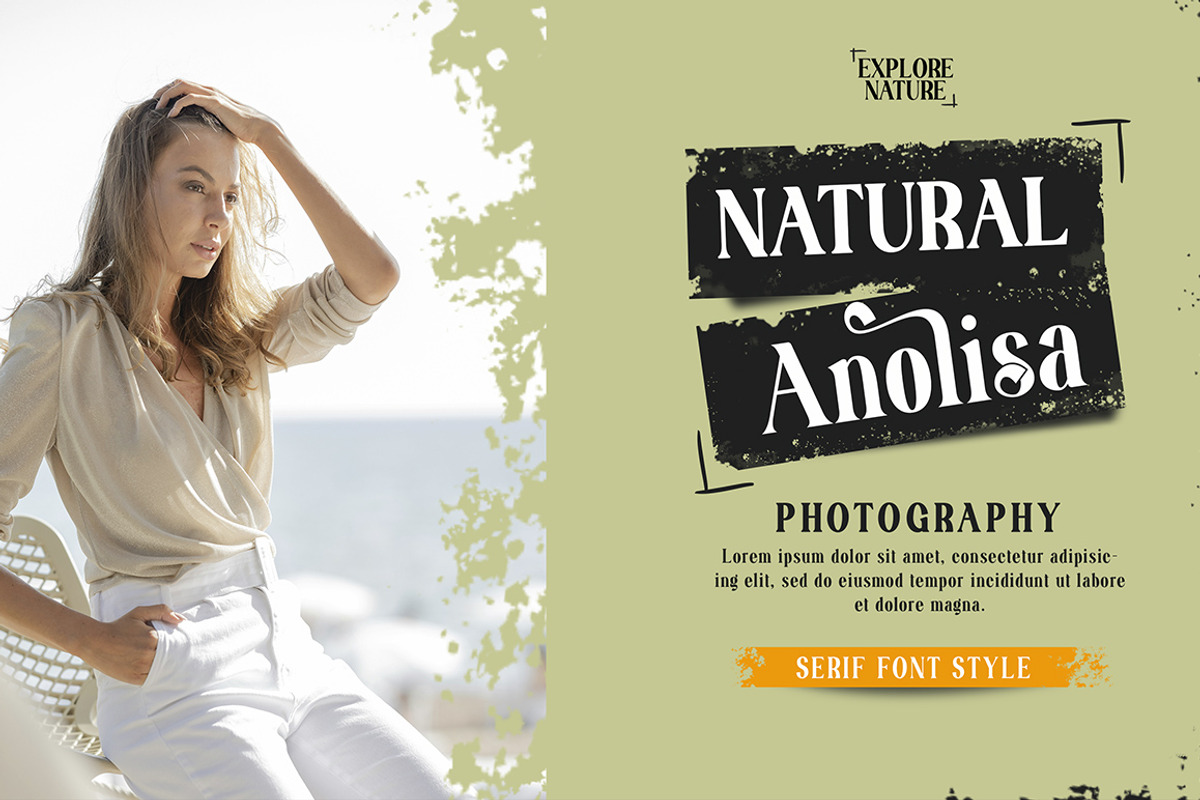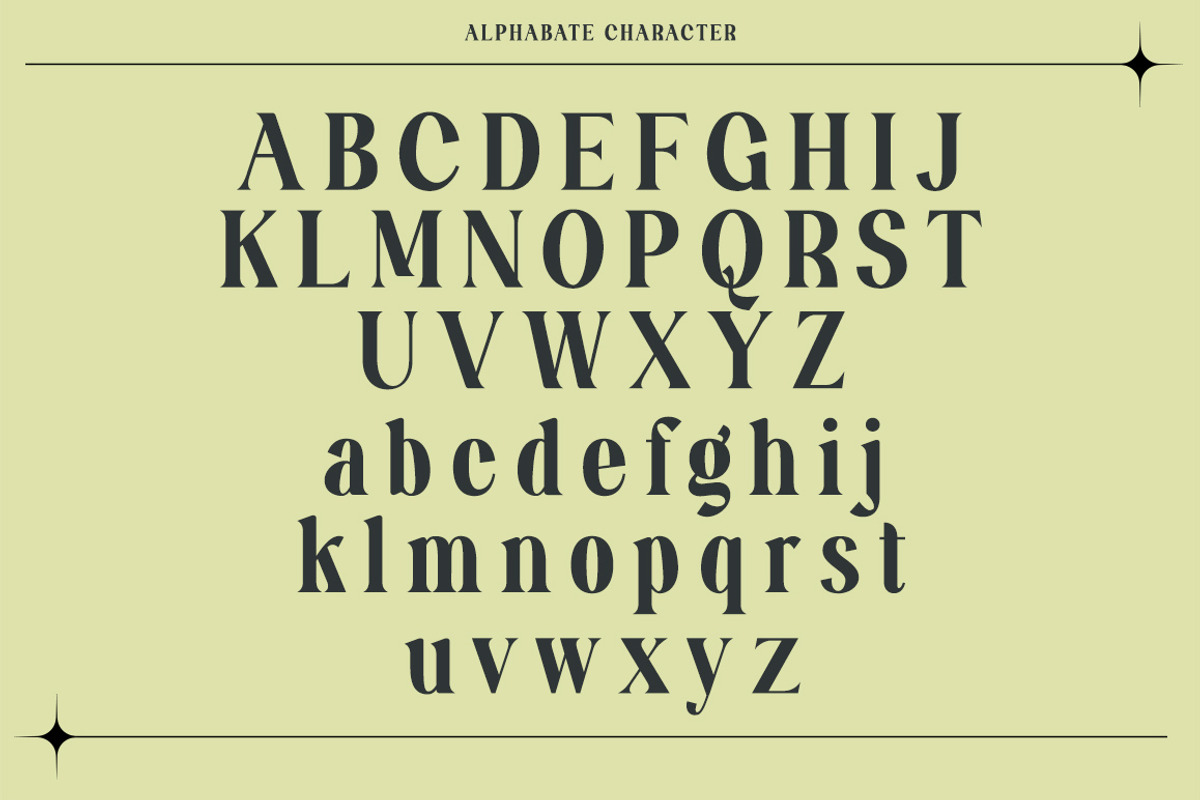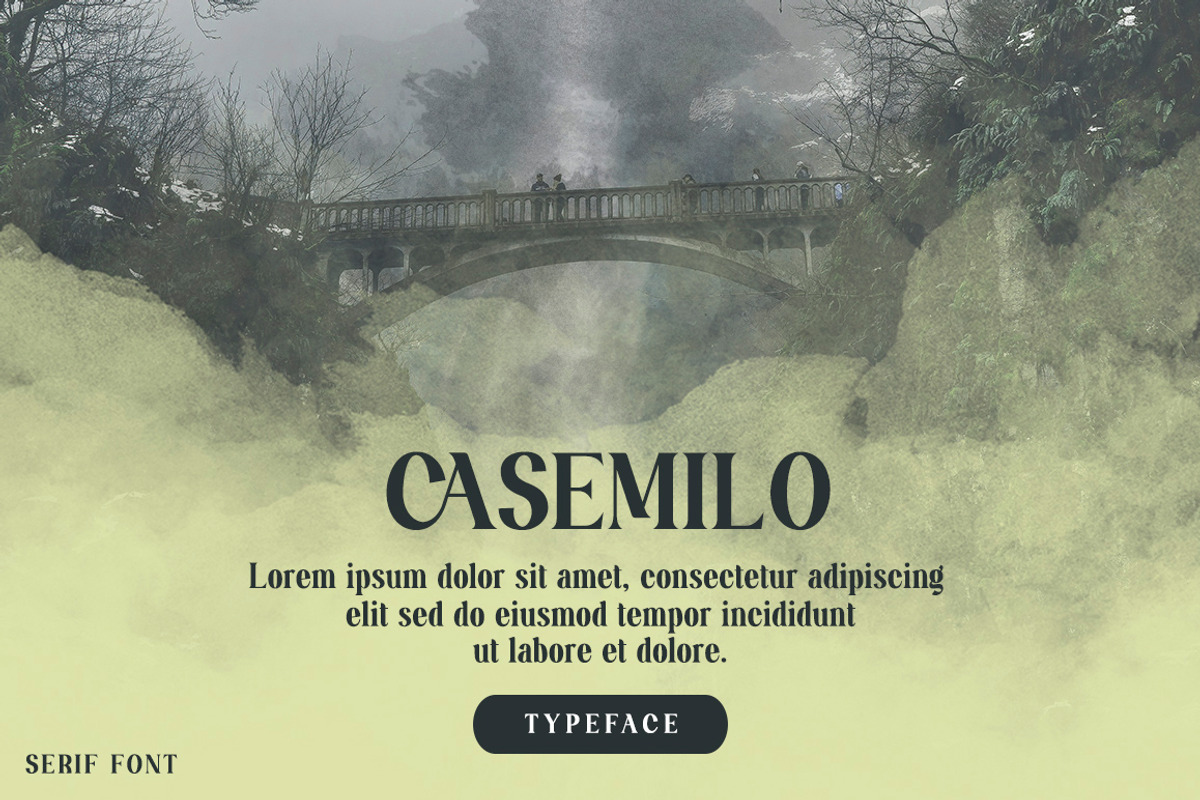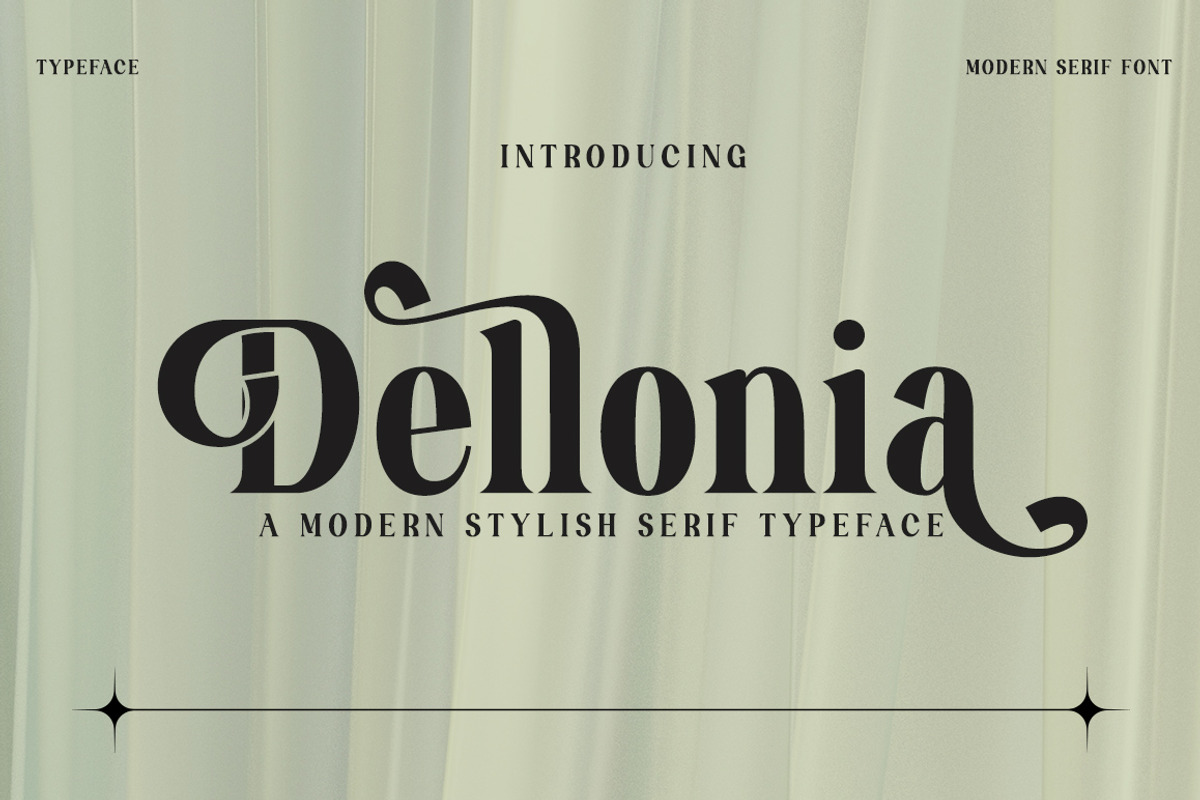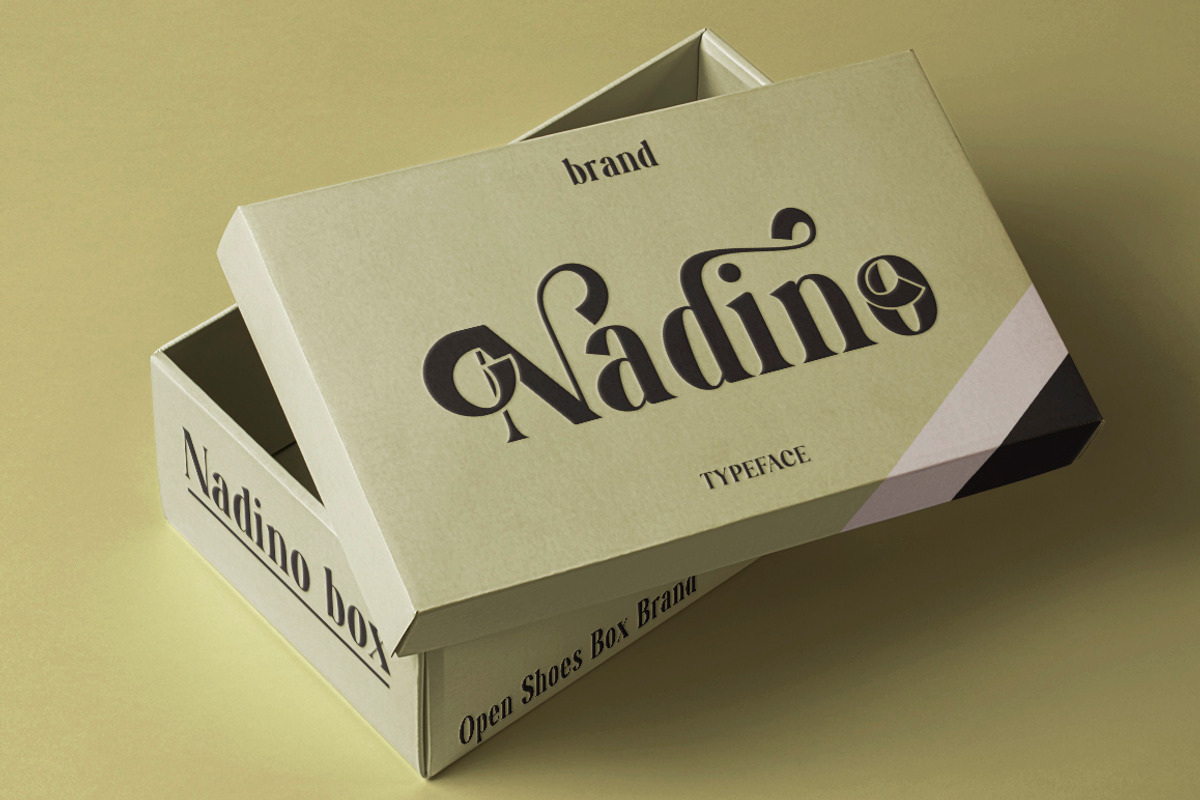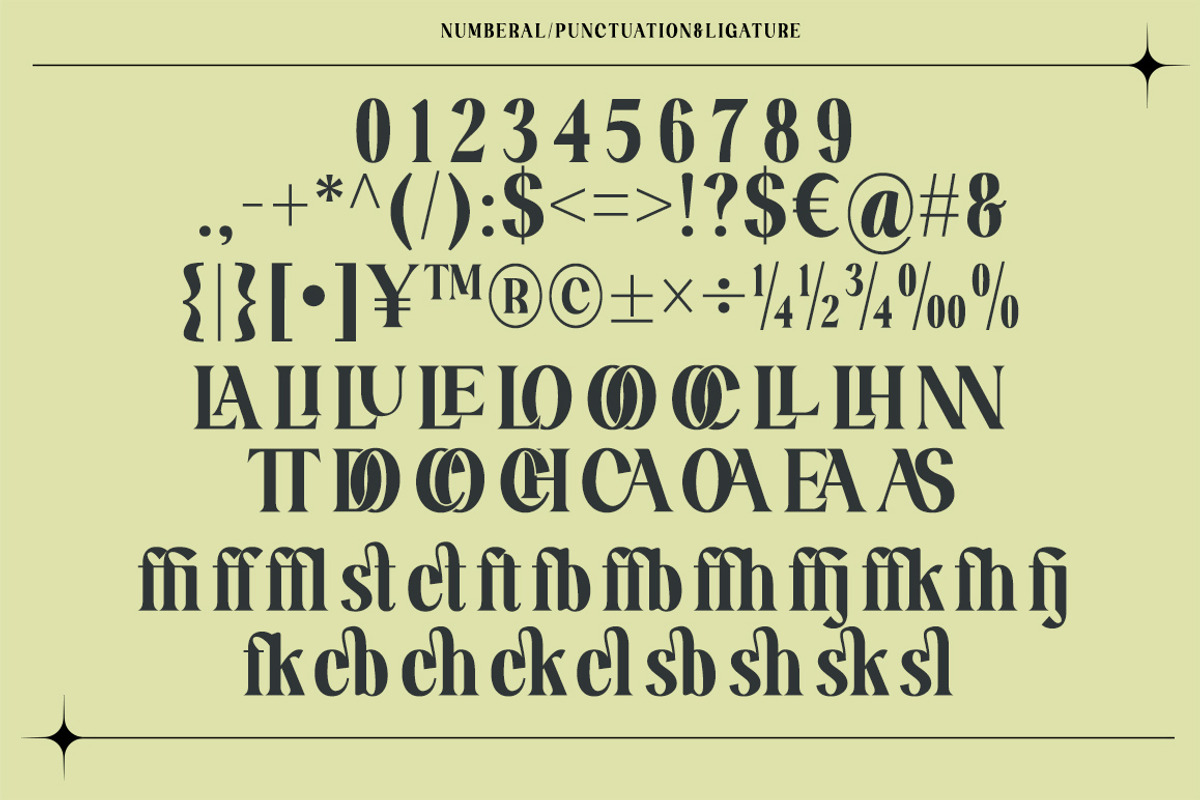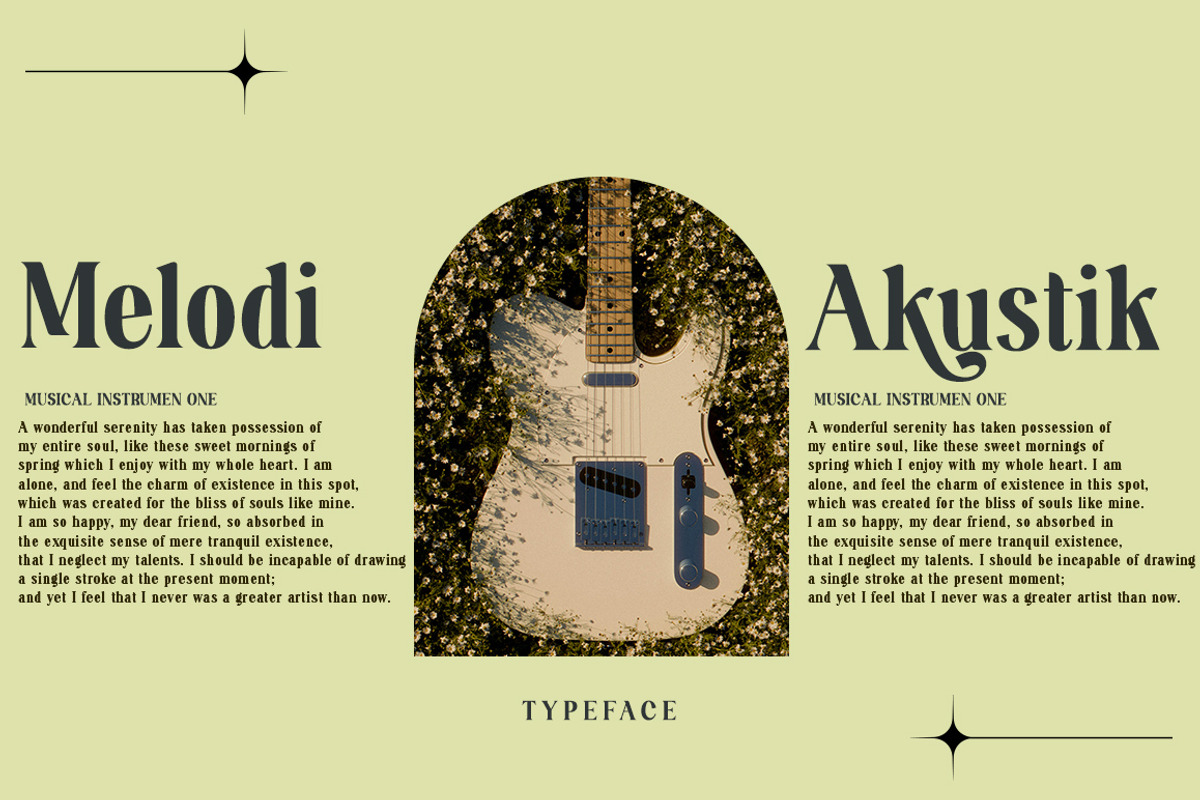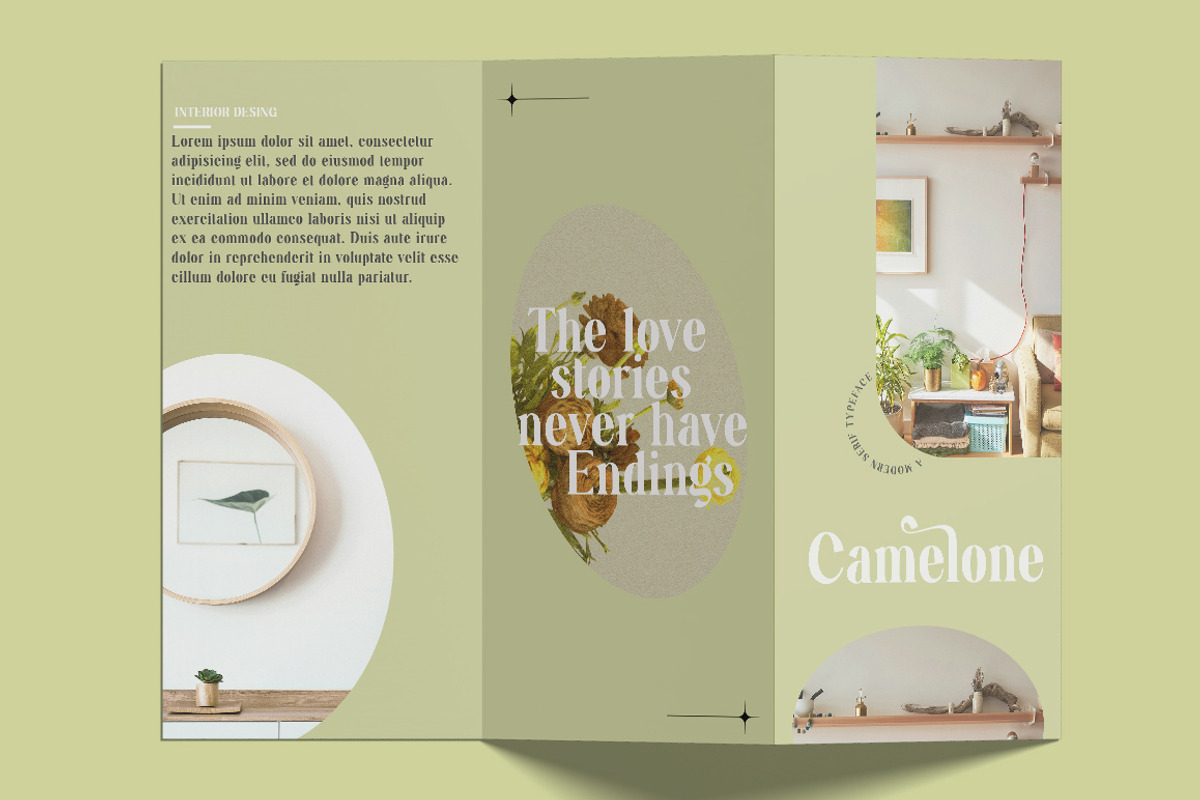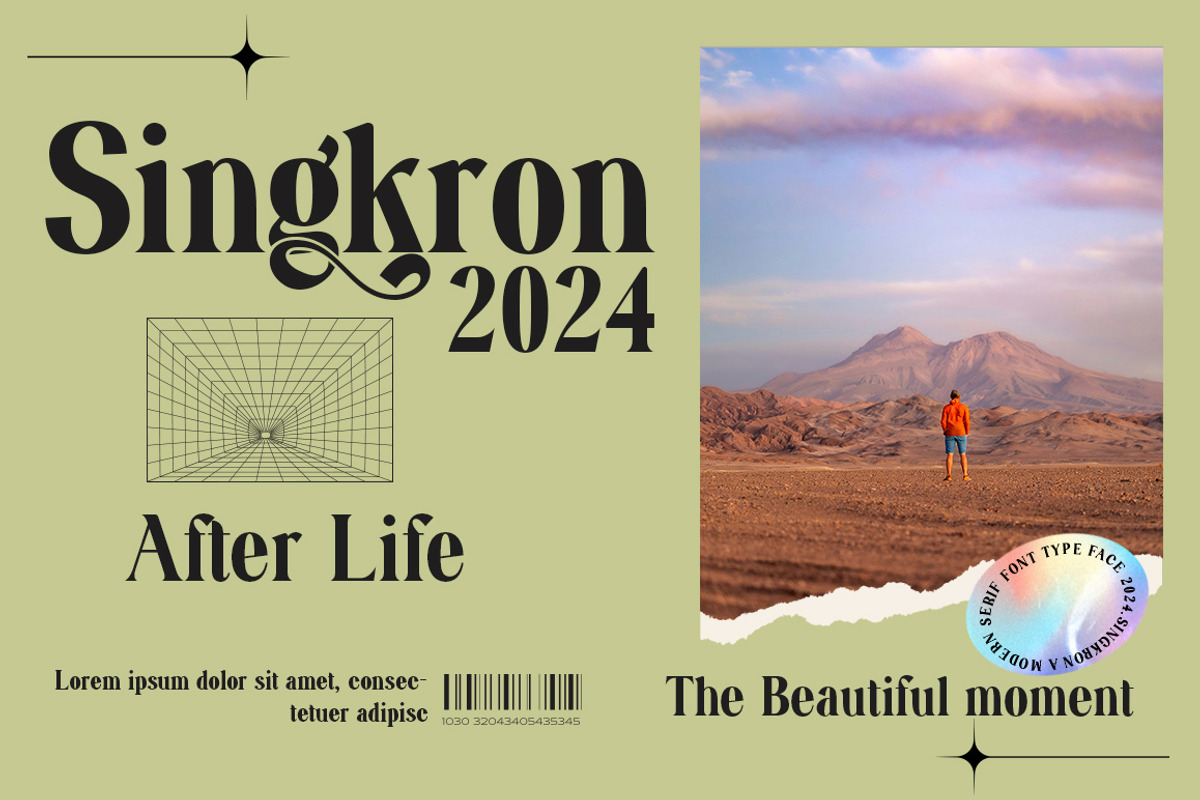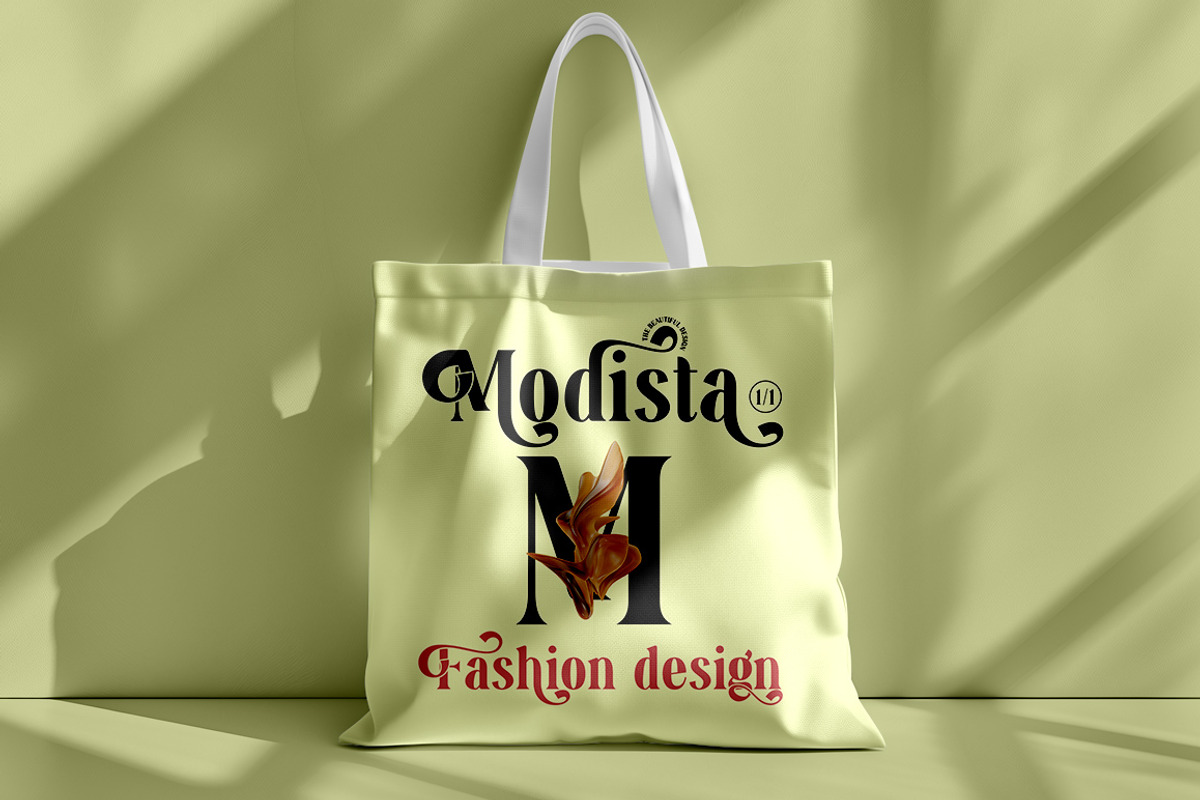
Dellonia
Dellonia is an elegant serif font featuring clean lines and subtle details, blending classic and modern touches. Perfect for headlines, logos, and branding, Dellonia stands out with its bold-thin contrast and sharp serifs, ideal for a professional and luxurious look.